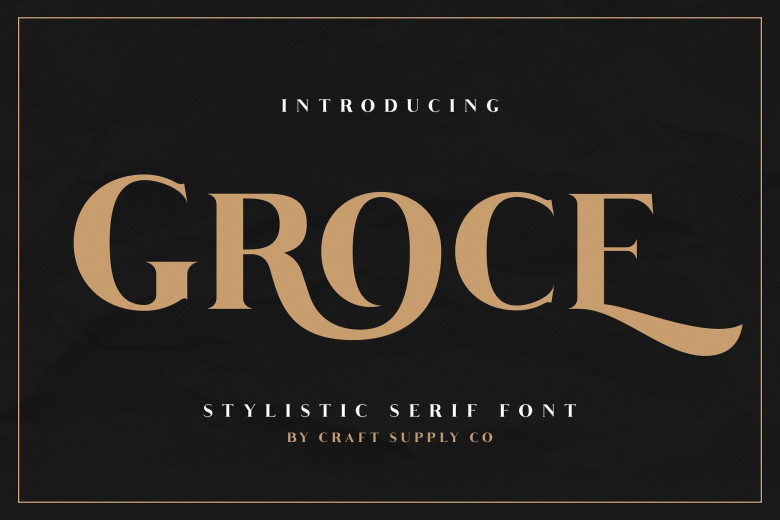
Groce Stylistic Serif Font
Say Hello Guy’s . Font is fresh, fun, and stylish + handcrafted with lots of love for your beautiful projects ♡. Introducing Groce Font. Groce Stylistic Serif Font is an elegant serif font that offers a wide range of possibilities, especially for a lot of alternative. Groce – Stylistic Serif Font offers an attractive tool for producing elegant decorative lettering, for example, for book covers or for posters and packaging.
You want to make a greeting card or a package design, or even a brand identity, craft design, any DIY project, book title, wedding font, pop vintage design, retro design or any purpose to make your art / design project look Elegant and Classy? Feel free to play with this font!